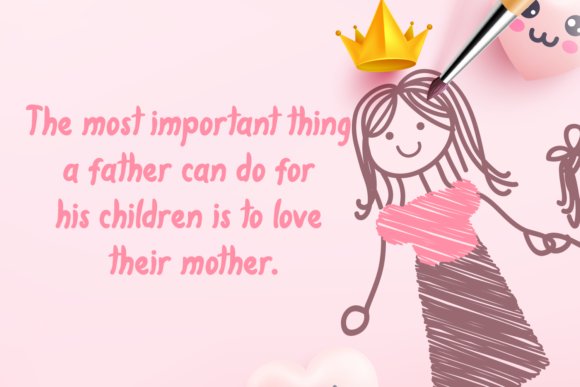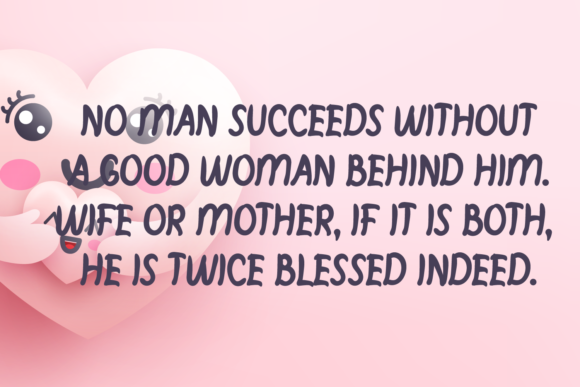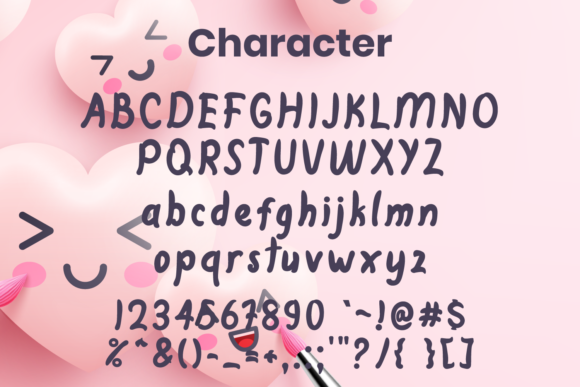
Introduction to Happy Aninda Font
Happy Aninda is a sweet and playful display font.
Readable and fun, this font is perfect for children themed designs, especially when combined with bright colors .
Key Features of Happy Aninda Font
Why Choose Happy Aninda Font?